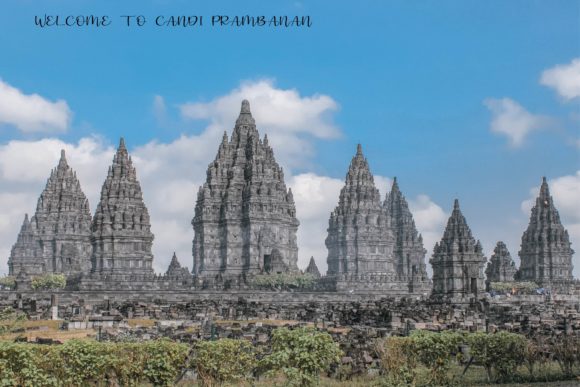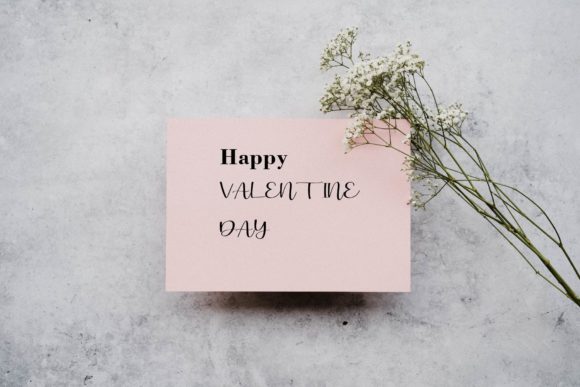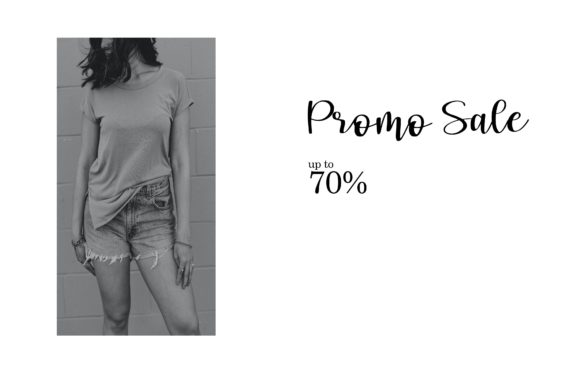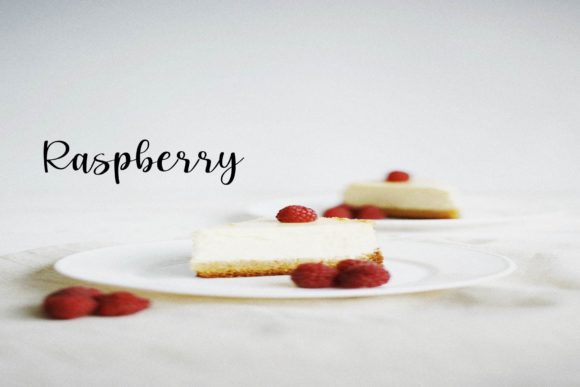
Discover the Timeless Charm of Bedoyo Font
Have you ever been working on a design project, pouring your heart and soul into it, only to feel like something’s missing? You know, that elusive touch that elevates your creation from good to great? For many designers, this moment is a familiar one, and it’s precisely where the Bedoyo Font comes in – a lovely and delicate script font that brings a breath of fresh air to your designs.
Crafted with elegance and refinement in mind, the Bedoyo Font is a valuable asset for designers seeking to add a touch of sophistication to their work. Whether you’re creating a logo, a branding identity, or a beautiful typography-based piece, this font is sure to bring a sense of class and refinement to your design. With its unique character and charm, the Bedoyo Font is a must-have for anyone looking to elevate their design game.
Key Features of Bedoyo Font
- Font Family: Bedoyo is a unique, hand-drawn font that offers a range of styles and weights, making it suitable for various design applications.
- Unique Characteristics: Bedoyo font features a distinctive, hand-drawn aesthetic with intricate details and flourishes, making it ideal for creative and artistic applications.
Designer Review: Bedoyo Font
I recently had the chance to work with the Bedoyo font, and I have to say it’s a unique addition to any design project. Here are some of the things that stand out:
- ✨ Versatility: The Bedoyo font is a true chameleon. It can be used in a variety of styles, from modern and sleek to vintage and eclectic.
- ✨ Expressiveness: The font’s expressive curves and lines make it perfect for conveying emotions and adding personality to your designs.
- ✨ Legibility: Despite its quirky nature, the Bedoyo font is surprisingly easy to read, making it suitable for body text and longer passages.
Of course, no font is perfect, and the Bedoyo has its limitations:
- ⚠️ Limited accessibility: The font’s unique design may not be suitable for people with certain visual impairments or dyslexia.
- ⚠️ Overuse: The Bedoyo font’s distinctive style may become tiresome if overused, so be sure to balance it with other fonts and design elements.
Overall, I think the Bedoyo font is a great choice for designers looking to add some personality and flair to their work. While it may not be suitable for every project, it’s definitely worth considering for the right type of design.
Getting the Most Out of Bedoyo Font
For the best results, use Bedoyo Font in conjunction with bold or italic styles to add emphasis and visual interest.
Experiment with different font sizes and combinations to create unique and eye-catching designs.
Bedoyo Font is ideal for:
1. Cultural or traditional designs.
2. Fashion or beauty branding.
3. Exotic or tropical-themed designs.